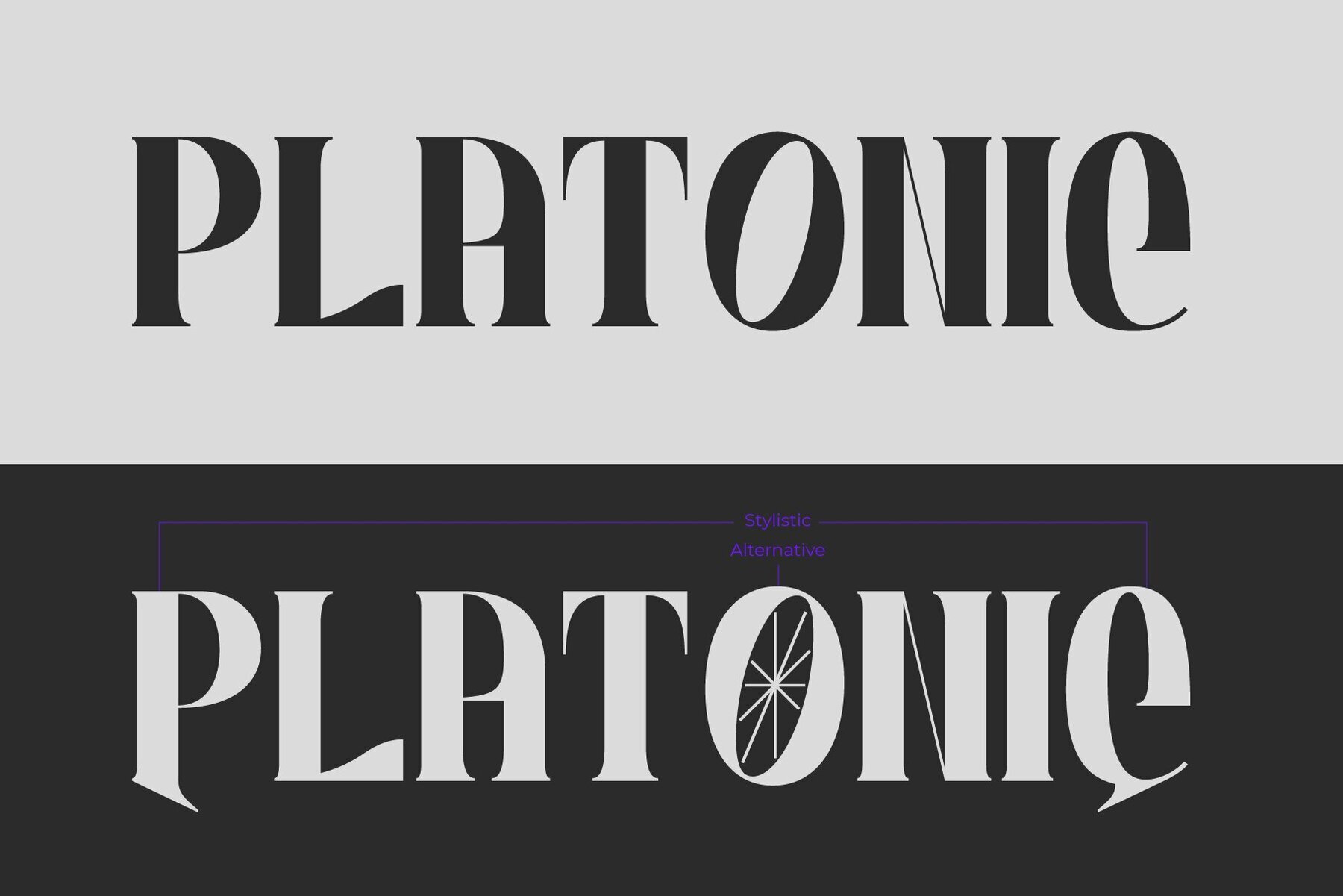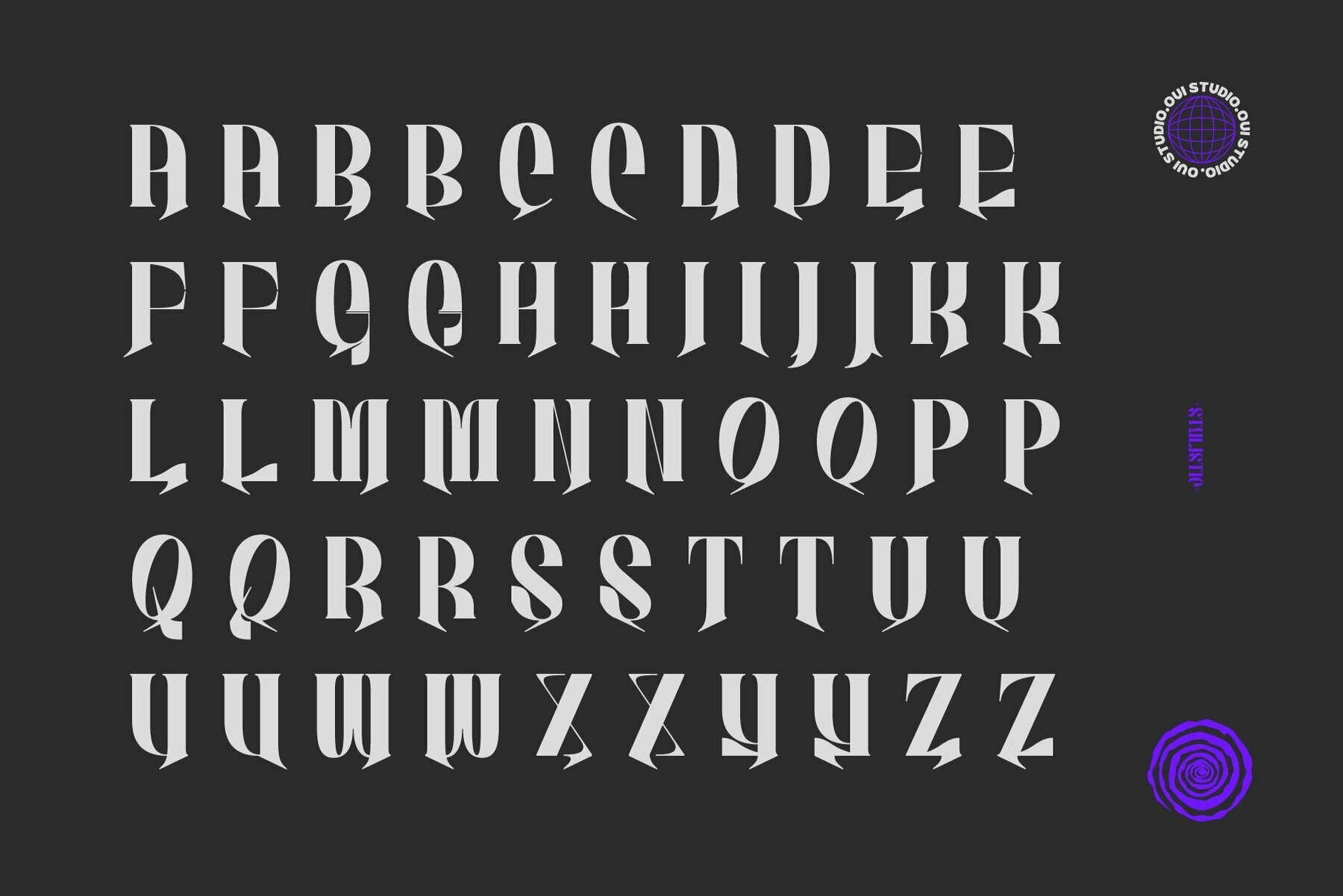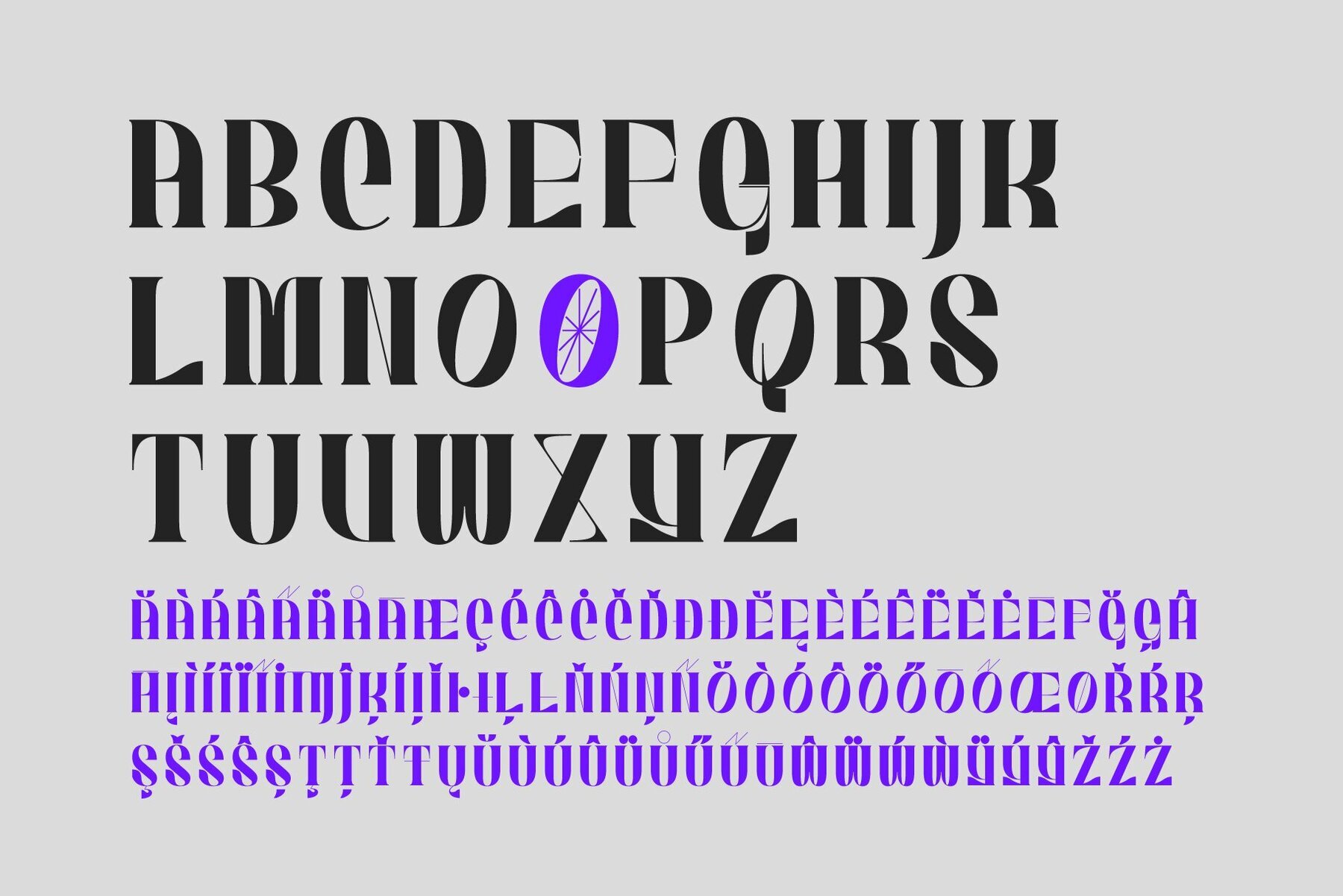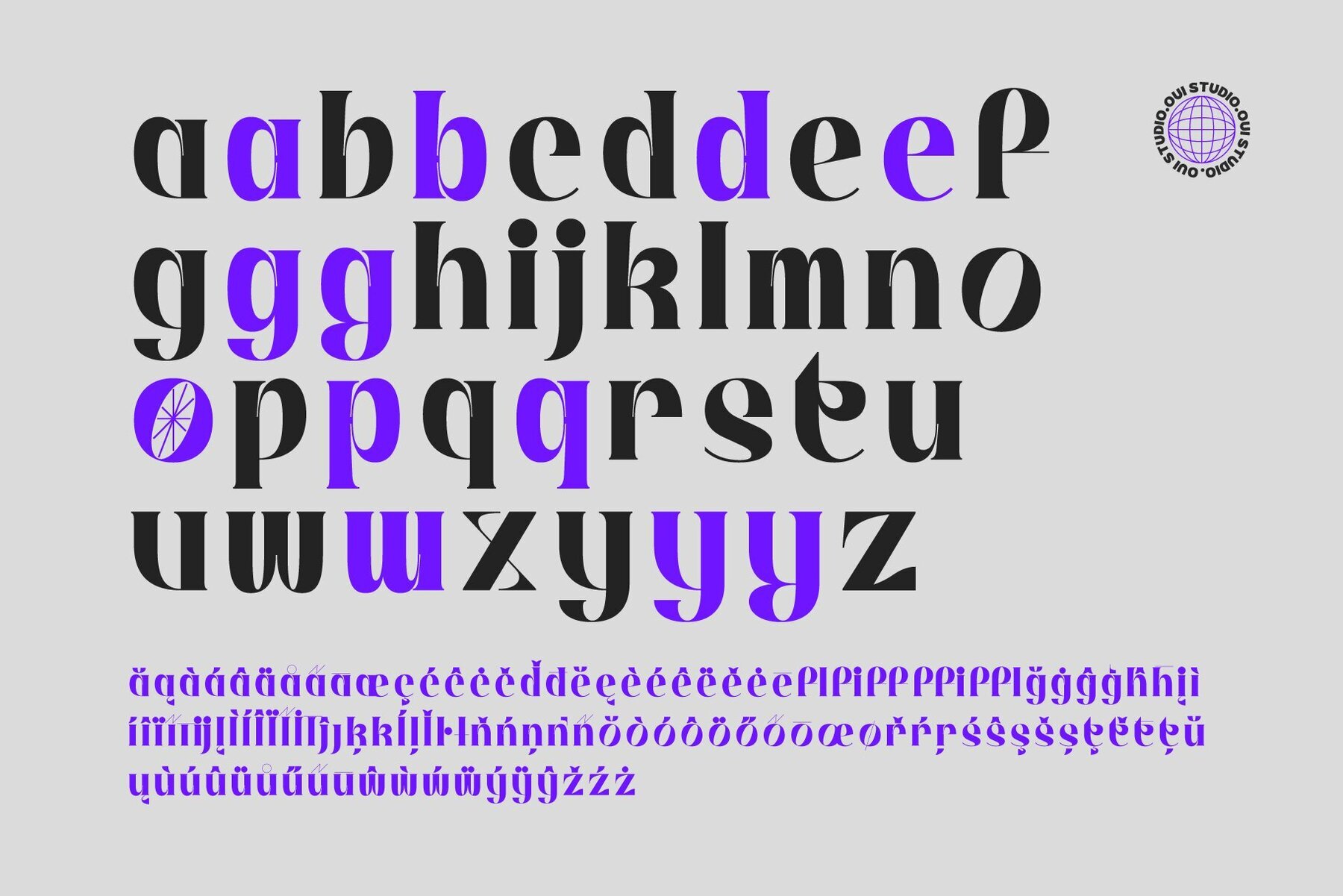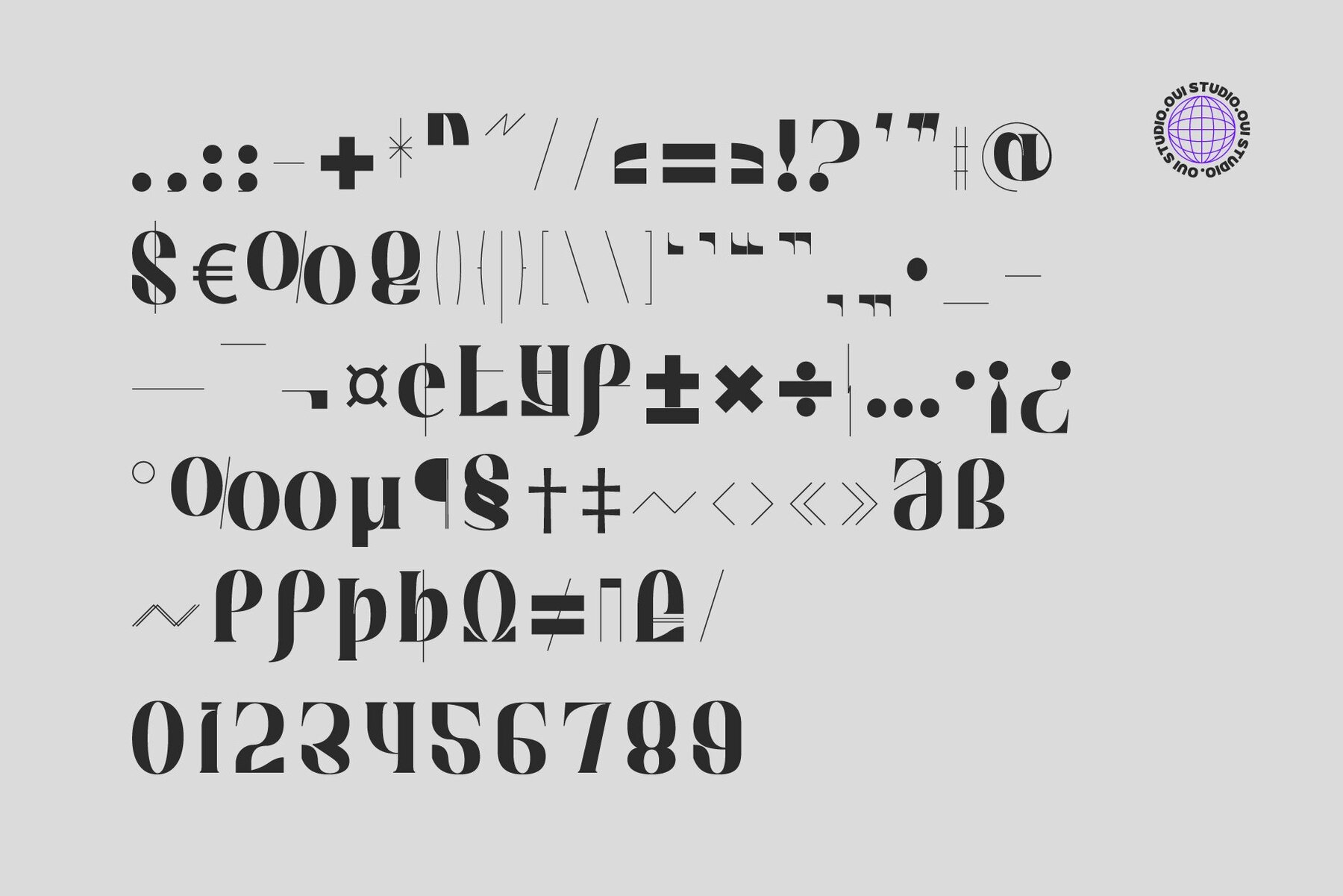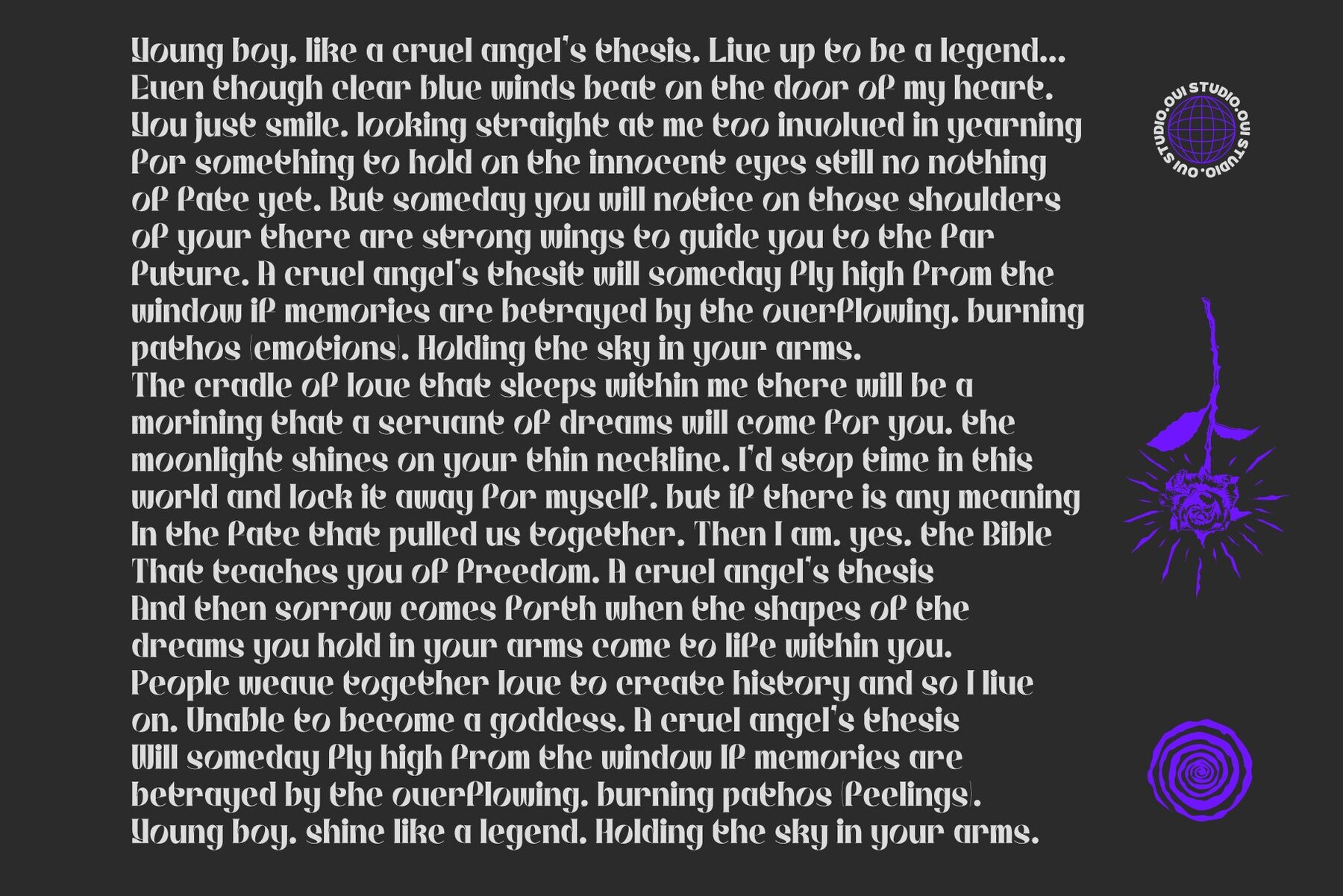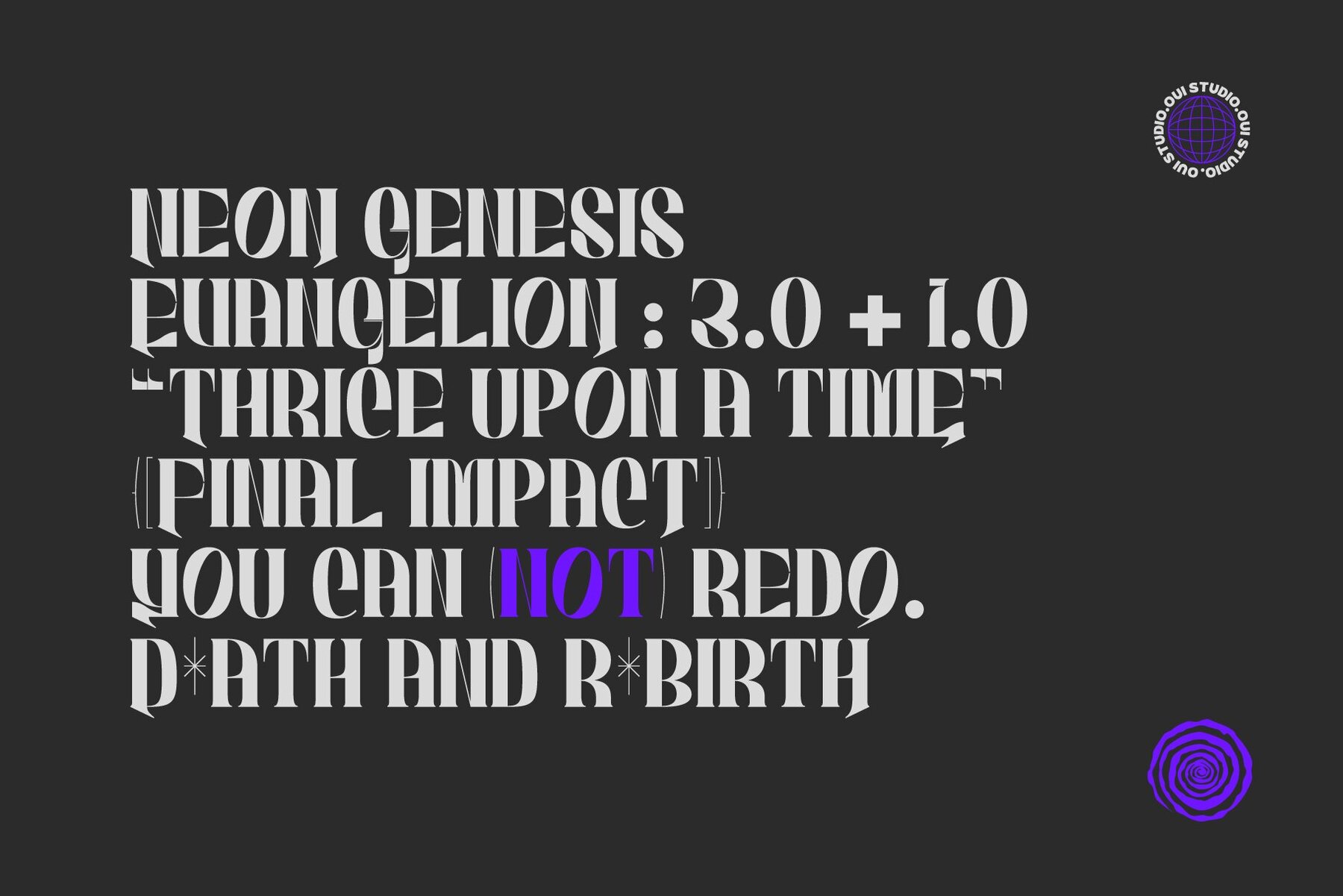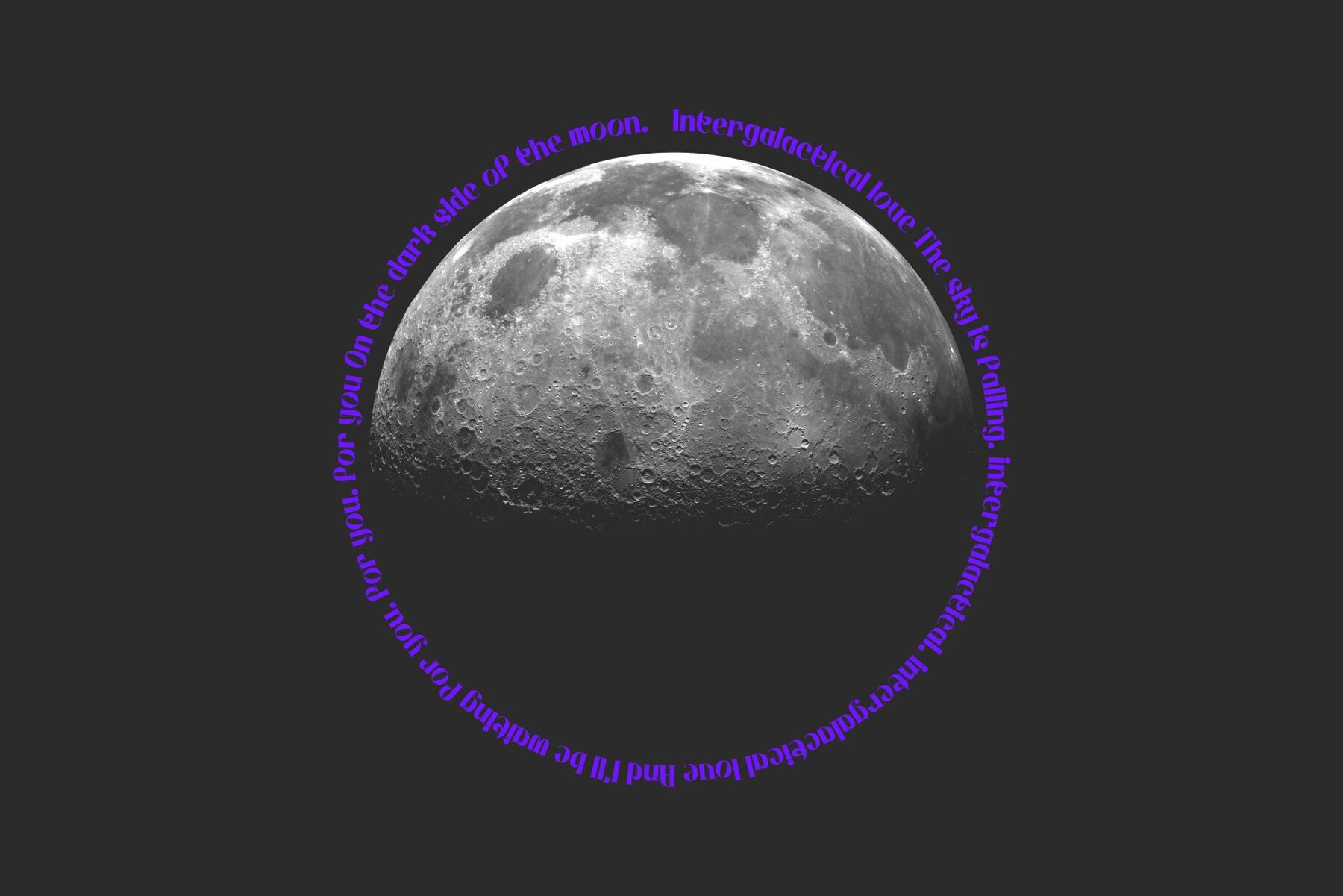
Platonic Font
Inspired by the energy of contemporary indie music, the Platonic font by Oui Studio offers a fresh take on typographic design. Its modern musical flair makes it an ideal choice for creatives looking to infuse their work with a sense of rhythmic dynamism. The Platonic typeface is perfect for enhancing your branding, creating standout logos, or enriching packaging designs. Its versatility extends to t-shirt designs, posters, and album artwork, providing endless possibilities for music-themed projects. With consistently thick glyphs, Platonic ensures a uniform aesthetic across all uses.Platonic: A Modern Musical Typeface